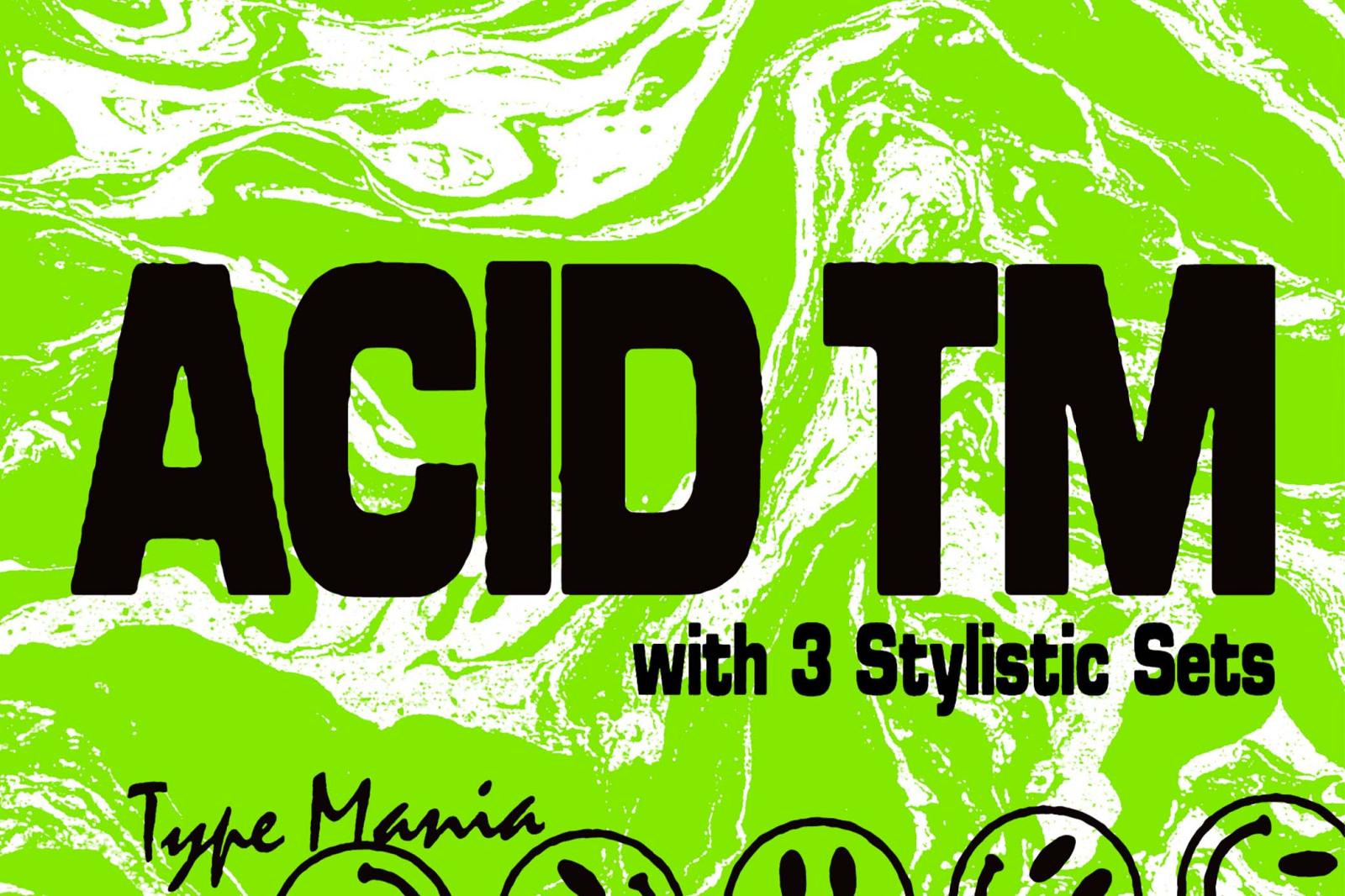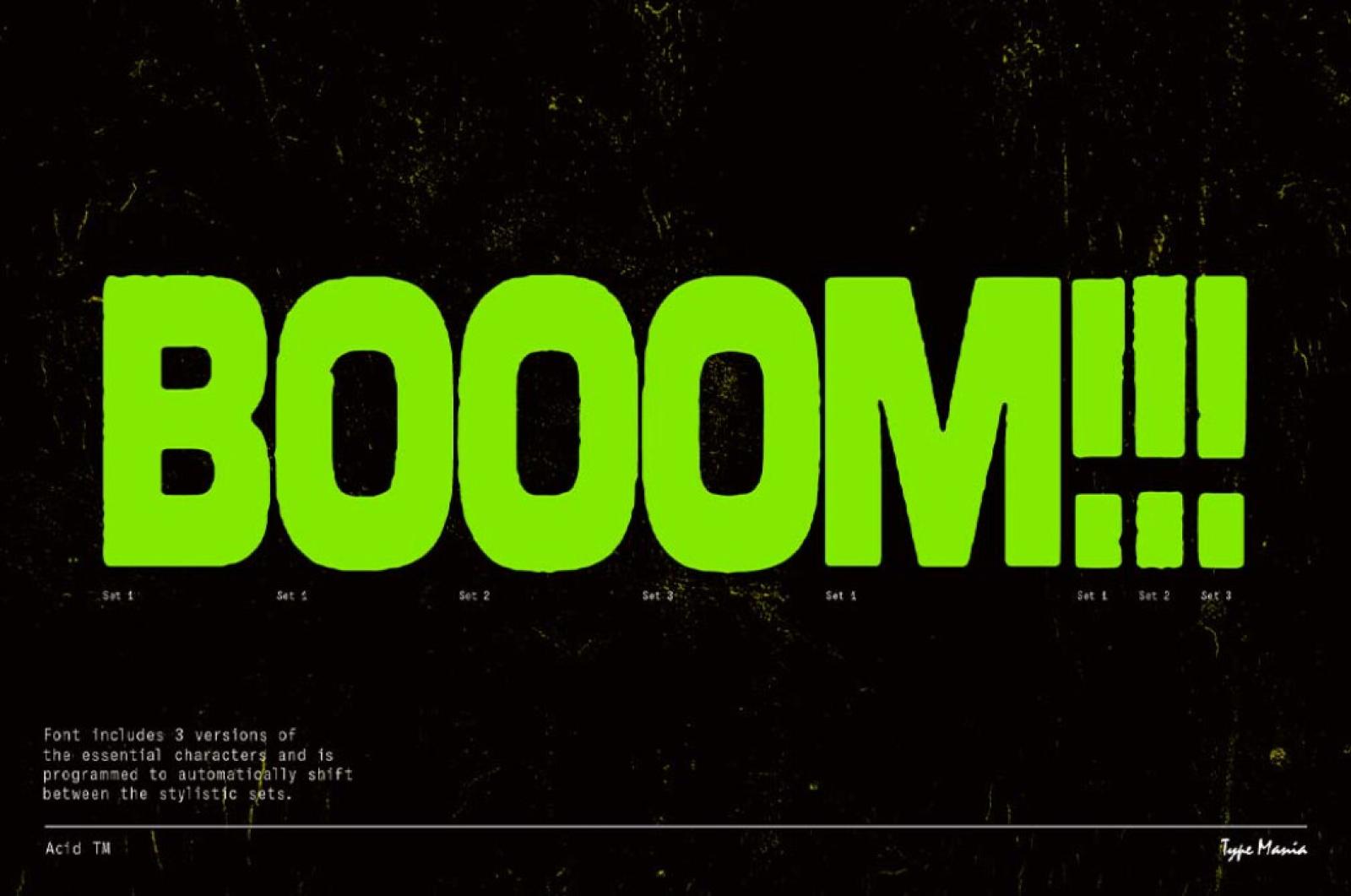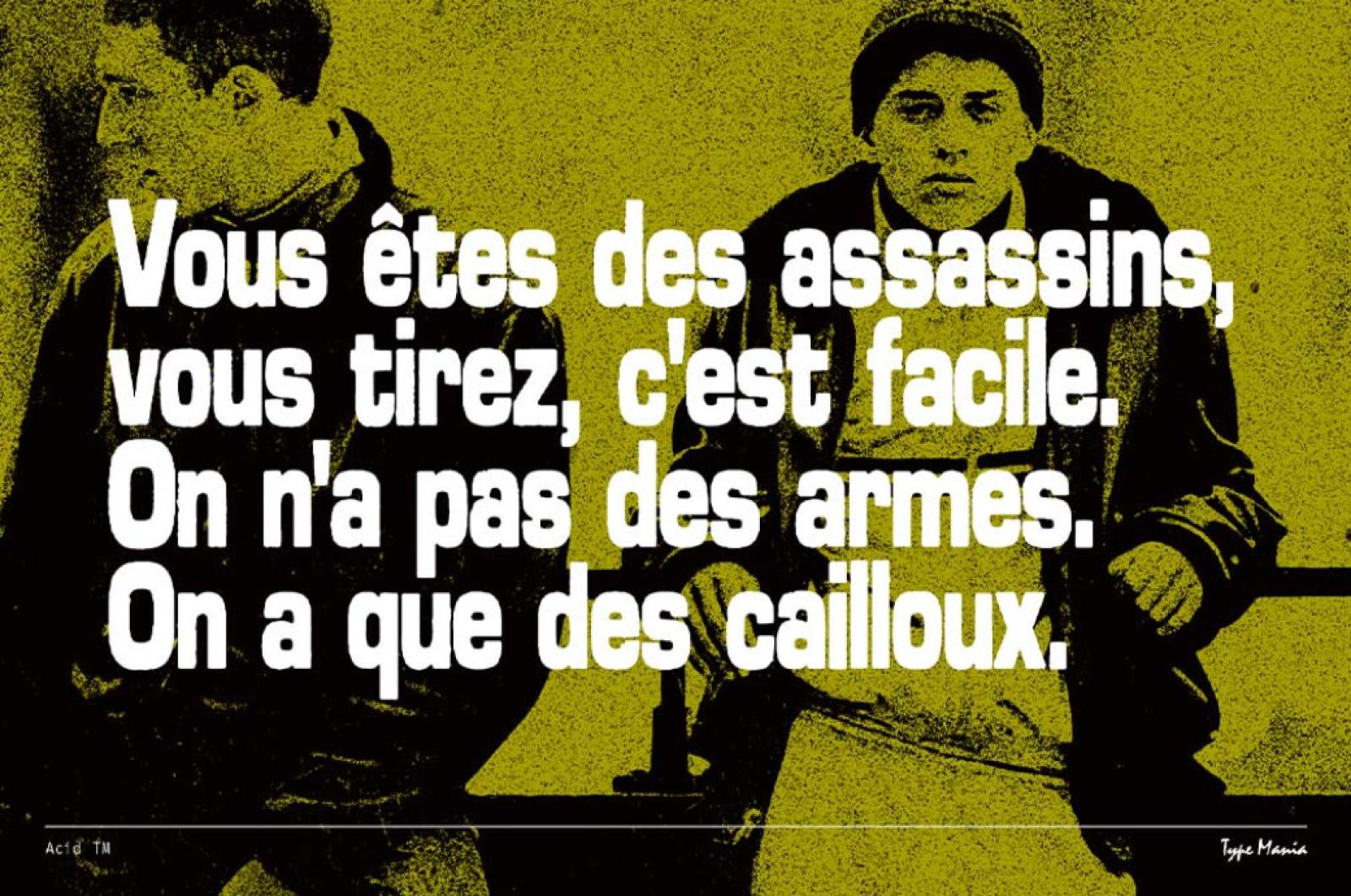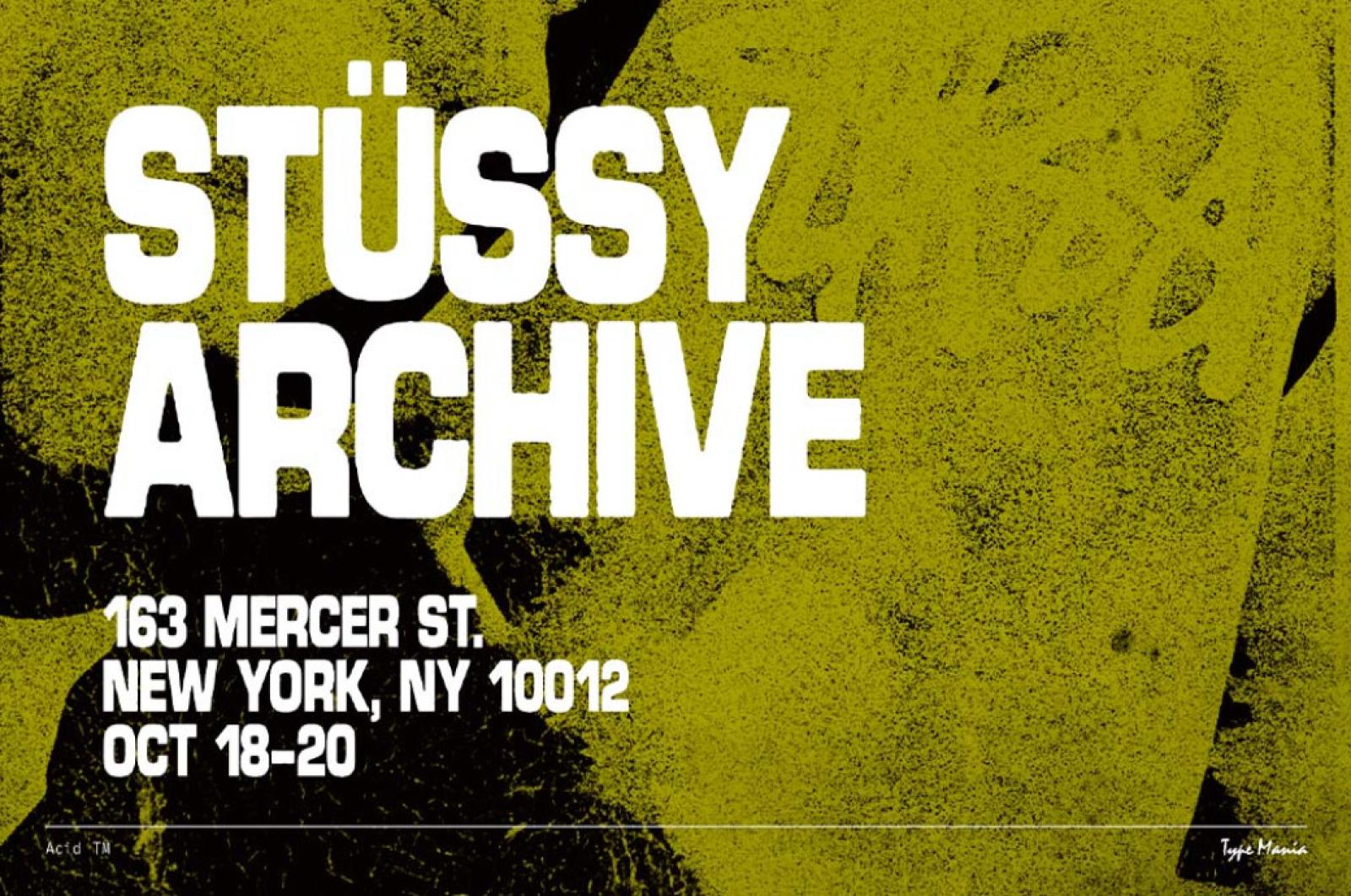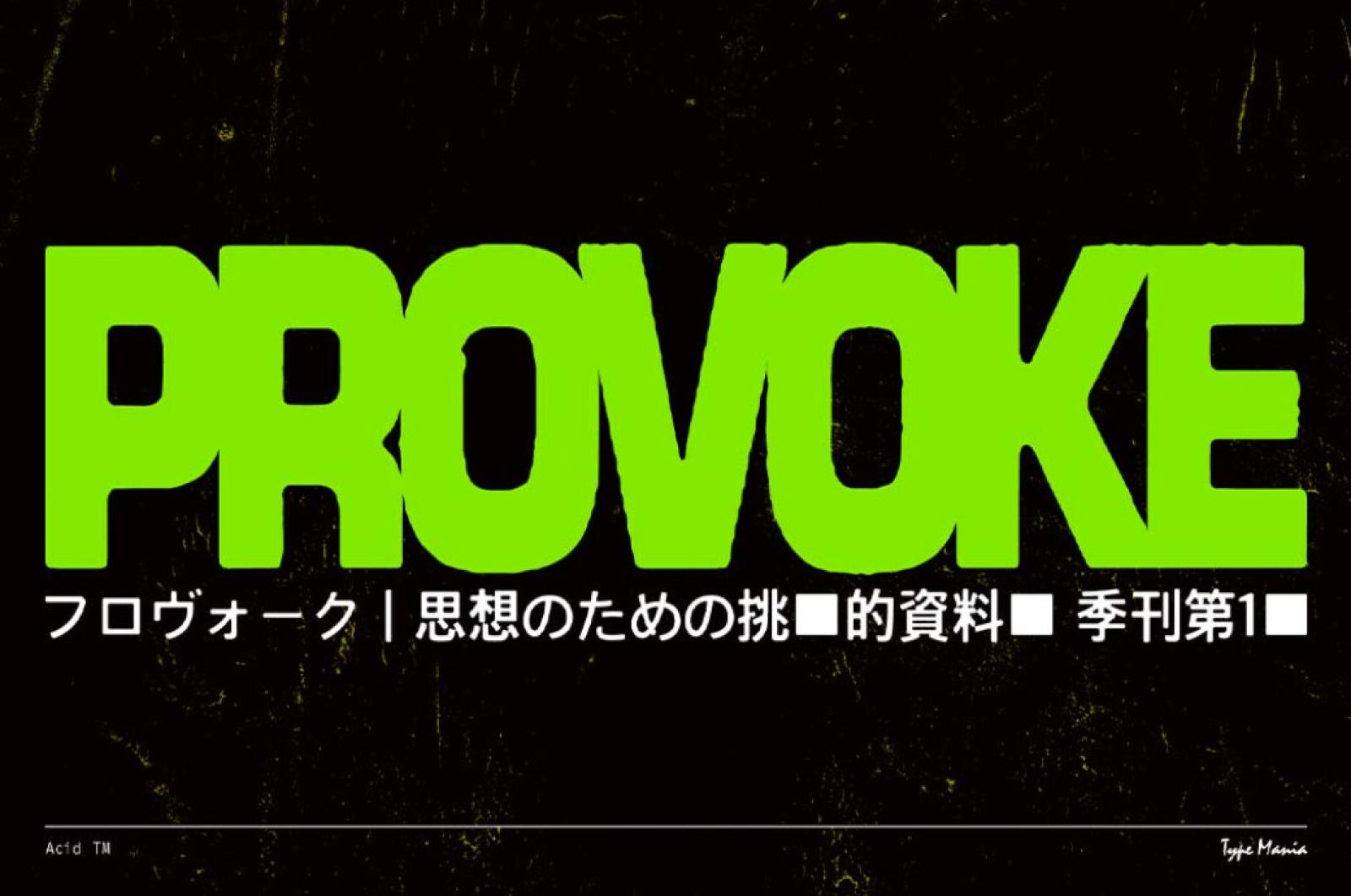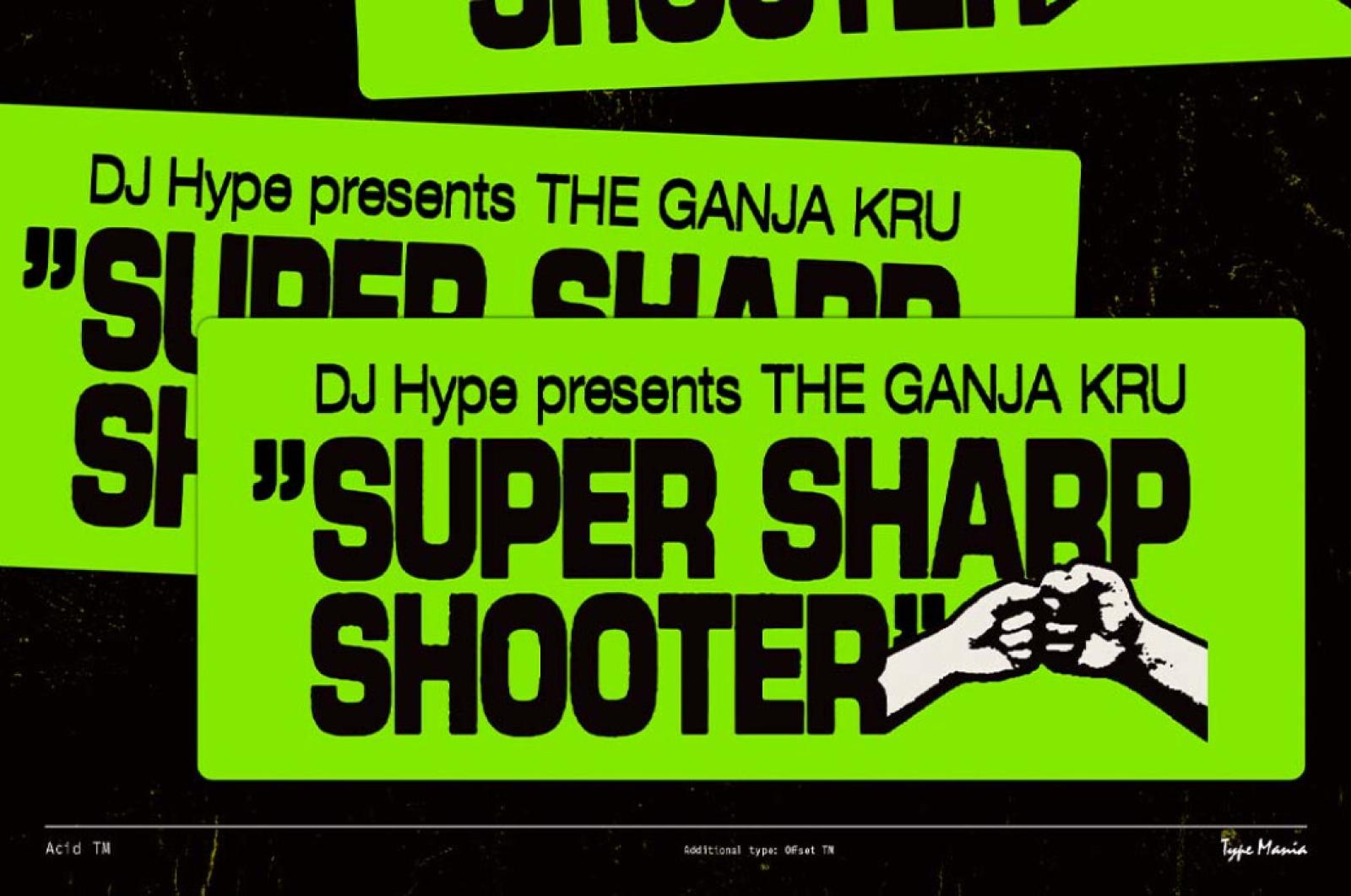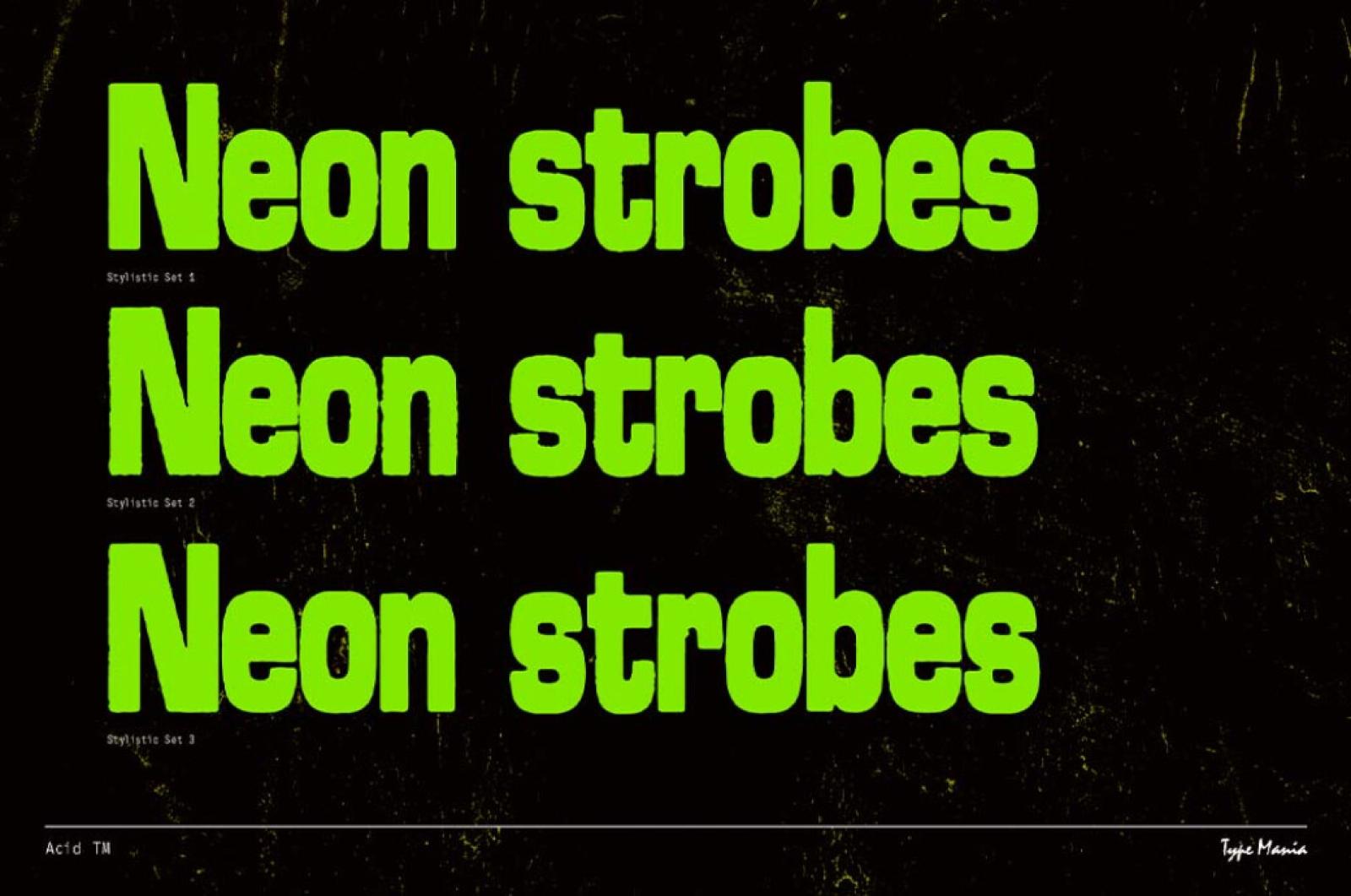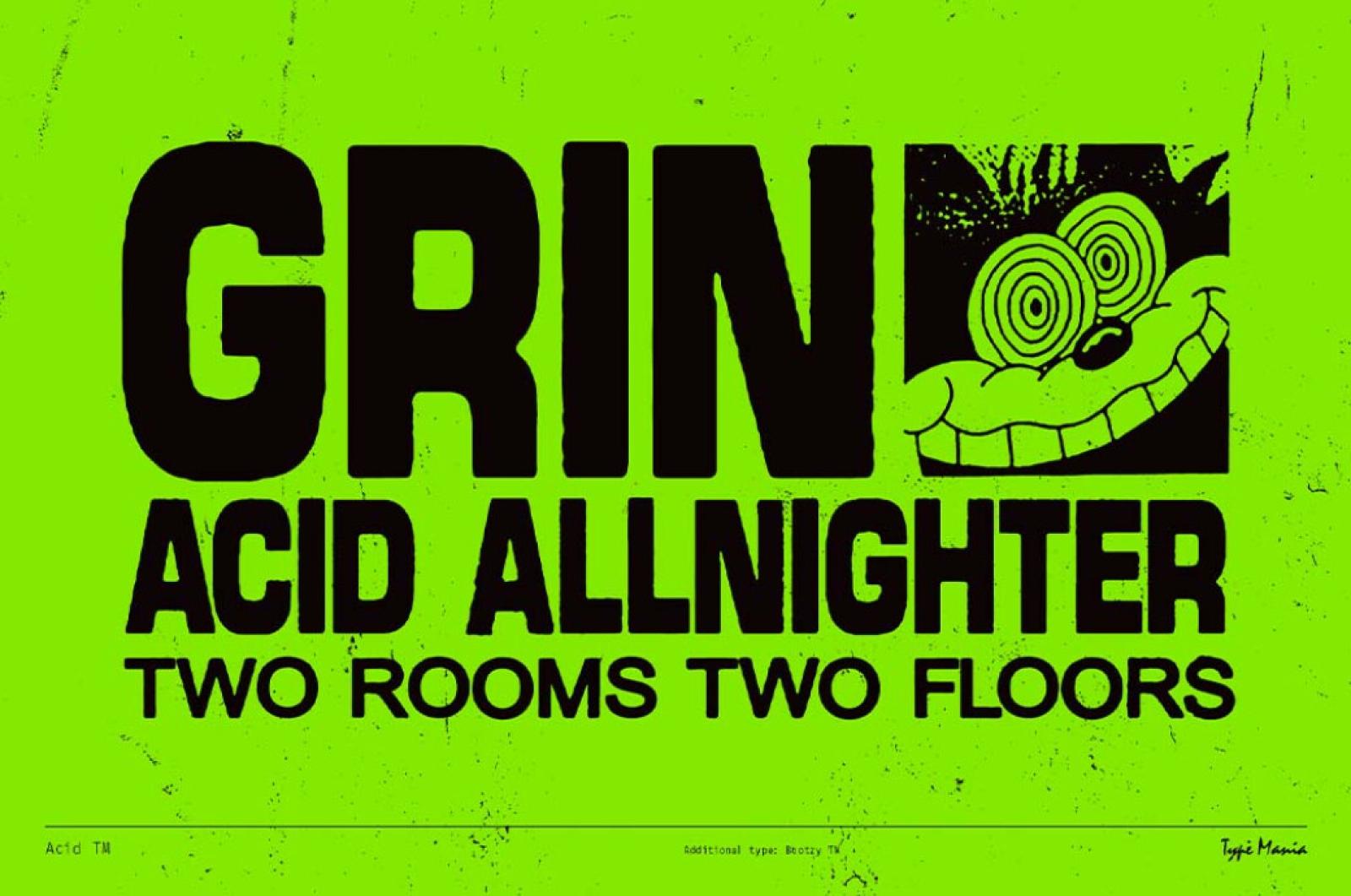
Acid TM — Rugged Dynamic Typeface
Step into a world where typography dances to its own beat. But under your conducting, of course. Acid TM font is here to make your designs scream with energy and attitude.
This rugged geometric sans serif is the perfect accomplice for your flyer, record cover, or t-shirt, ready to infuse them with a subtle grungy vibe. It comes with three stylistic sets of all the essential glyphs, automatically shifting to add character and texture with every keystroke. The font is cleverly programmed to switch between stylistic sets whenever identical glyphs are side by side, ensuring your text never looks static. And it is multilingual enough to use it with the most Latin-based languages.